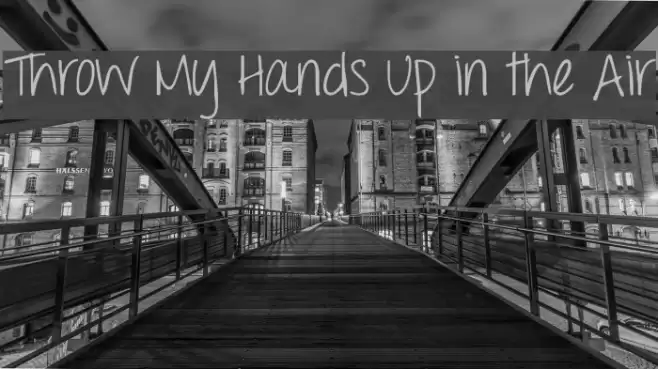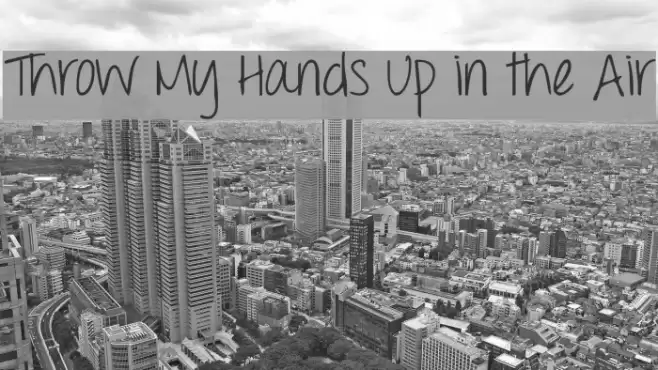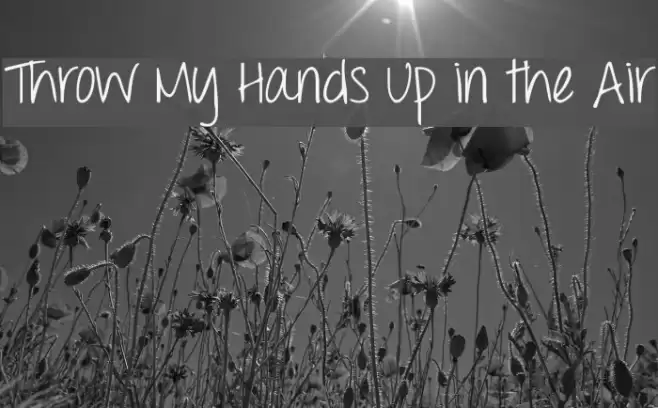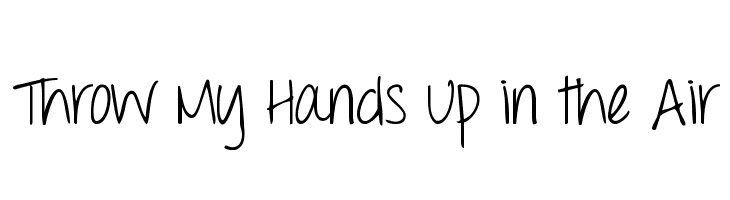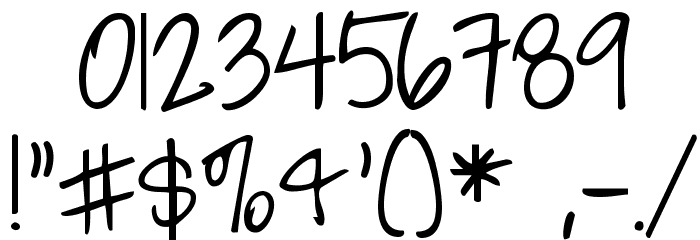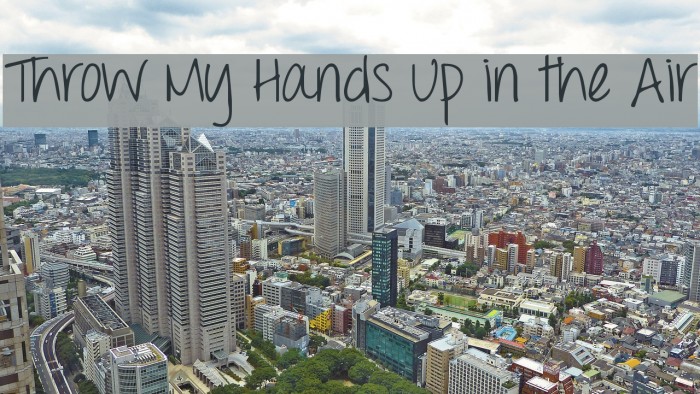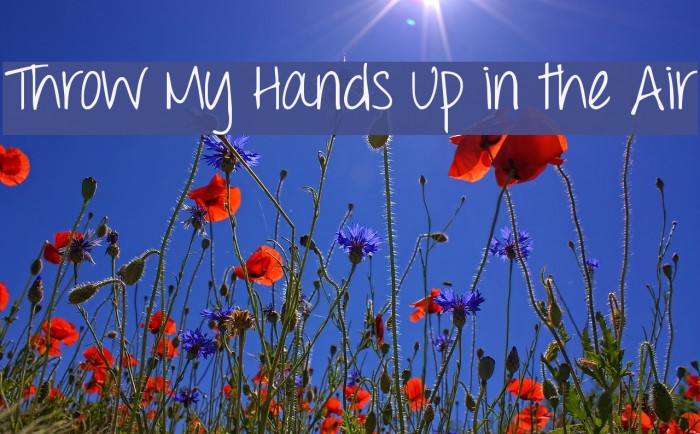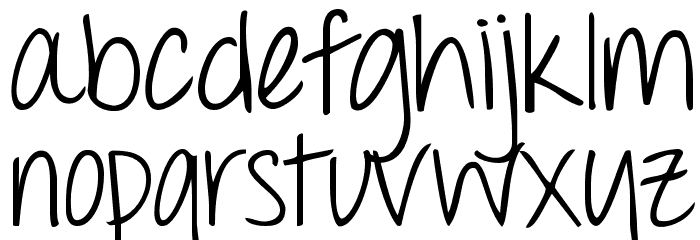
Throw My Hands Up in the Air Font
Throw My Hands Up in the Air Description
This font features a playful and casual handwritten style, characterized by its smooth curves and slightly uneven strokes that give it a personal touch. The letters are well-spaced, maintaining readability while conveying a sense of spontaneity. The uppercase letters are bold and prominent, while the lowercase letters maintain a consistent flow, enhancing the font's informal aesthetic. Numbers and special characters are crafted with the same playful style, making them suitable for a variety of creative applications. The overall appearance is friendly and approachable, ideal for projects that require a personal or whimsical touch.
A playful, casual handwritten font with smooth curves and a personal touch from Handwritten fonts.
- Proposed Projects: Ideal for greeting cards, invitations, personal branding, and creative projects that require a friendly and informal style.
- Overall Style: Casual, Playful
- Use Case: Headlines, Logos, Invitations